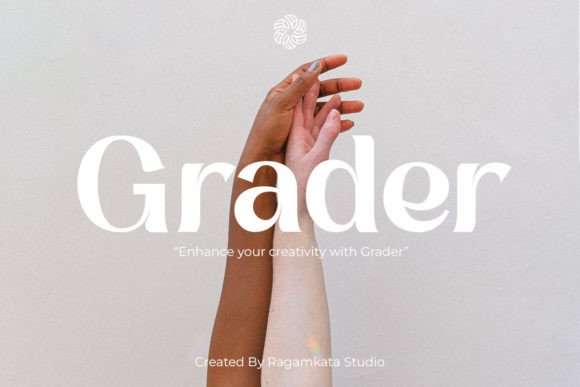
Step into the realm of sophistication and timeless elegance with Grader Font, a modern serif font that exudes charm and distinction. Crafted by the skilled hands of RagamKata Studio, Grader is not just a font; it's an artistic masterpiece that transforms your designs into visually captivating creations.
Unleash the power of Grader's versatility, a font that effortlessly adapts to a myriad of design projects. Whether you're crafting headlines that demand attention, designing classy editorial layouts, or creating fashion brands and cosmetic labels that ooze style, Grader is your perfect partner.
Immerse yourself in the world of modern advertising, where Grader's presence elevates your designs to new heights. Create invitation cards that leave a lasting impression, art quotes that inspire and motivate, and home decorations that radiate warmth and elegance.
With Grader, transform book and cover titles into works of art, ensuring your literary creations stand out from the crowd. Make special events truly unforgettable with Grader's ability to add a touch of sophistication and charm.
Experience the beauty of Grader's seamless integration with web pages, where it shines as the ultimate font for captivating headlines and alluring content. Let Grader weave its magic, enhancing user engagement and leaving a lasting impact on your audience.